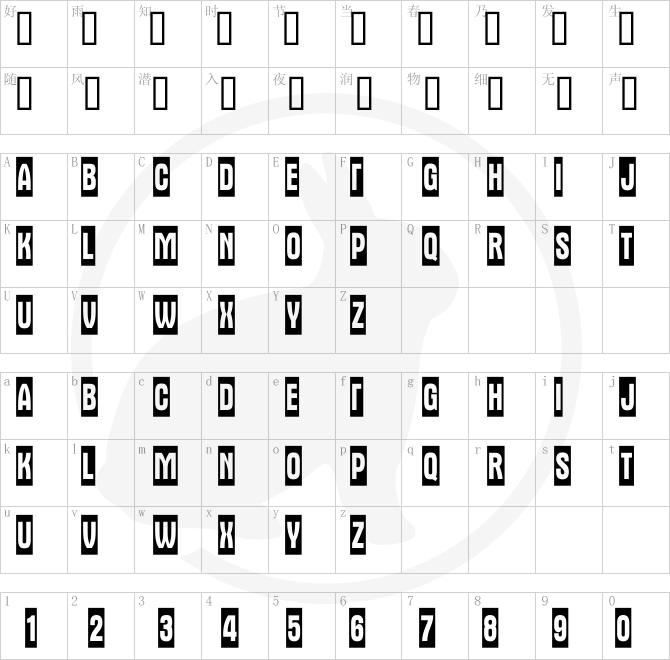
- Font Name:a_AlternaTitulNrCm
a_AlternaTitulNrCm.ttf is a very beautiful artistic font, a_AlternaTitulNrCm.ttf is widely used in the design and printing of various books and pictures,a_AlternaTitulNrCm.ttf has a strong visual impact,a_AlternaTitulNrCm.ttf is a commonly used font in newspapers, magazines and books, and is used in posters, e-commerce Poster design, store design, logo design, font design and other fields.a_AlternaTitulNrCm.